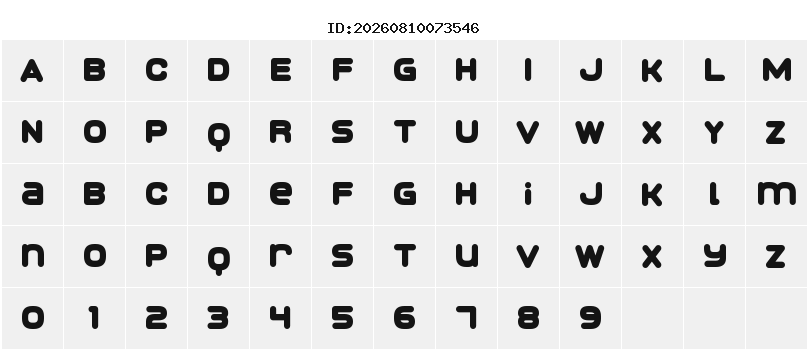
• Font Name: POE New Unicase
• Designer: Dan P. Lyons
• Manufacturer: The Powerhouse of Entertainment
• Description: New unicase font.
About POE New Unicase.ttf
POE New Unicase.ttf is a modern, elegant sans-serif font designed for ultimate readability and visual harmony. Perfect for branding, headlines, web design, and print materials.